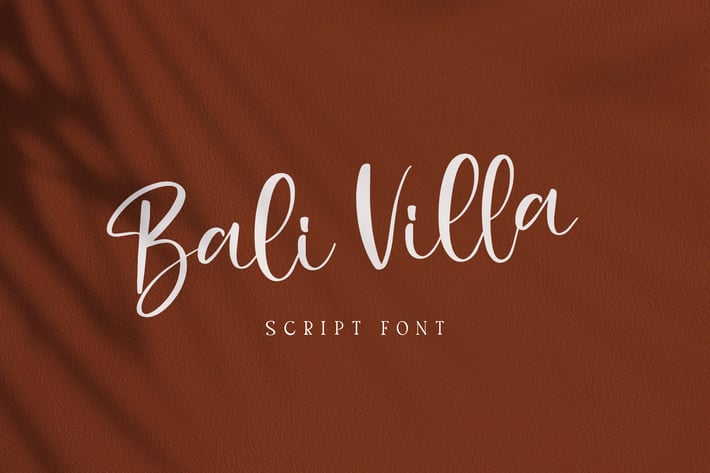
Bali Villa Font
Bali Villa handwritten font is a very beautiful and unique Classy Font that comes with a very beautiful ligature surprise with different font characters so it is perfect for your design needs such as printed quotes, invitation cards, social media, product packaging, your website and more!